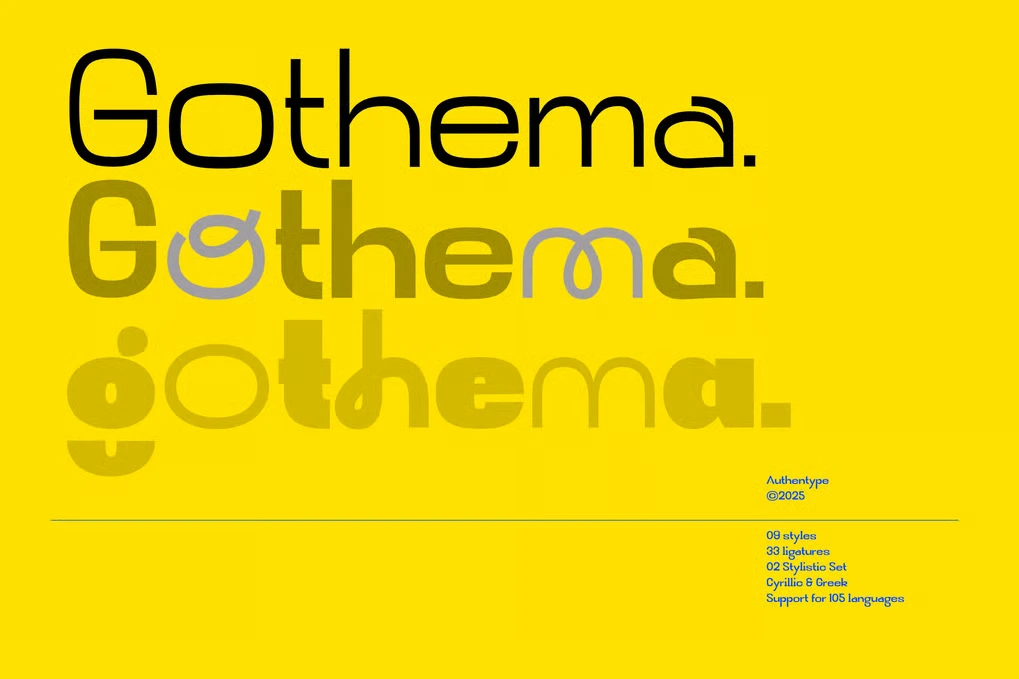
Shape Your Brand with Gothema – A Modern Geometric Sans
Gothema is a clean, modern geometric sans-serif font family designed to deliver clarity, elegance, and a bold visual identity. With that in mind, its refined structure and complete weight range make it perfect for high-impact results across both digital and print platforms.
PRECISION MEETS FLEXIBILITY
Each letterform is carefully constructed to balance geometric form with natural legibility. As a result, this fusion of logic and beauty makes Gothema ideal for projects that require both structure and style.
PERFECT FOR A WIDE RANGE OF USES
• BRAND IDENTITY & LOGO DESIGN
Gothema delivers a bold and memorable look. Consequently, it gives your brand a confident, modern voice.
• WEB & APP INTERFACES (UI/UX)
Its clean forms and strong legibility work perfectly for digital interfaces and responsive layouts. Therefore, it’s a great fit for modern UI design.
• EDITORIAL & MAGAZINE DESIGN
From striking headlines to smooth body text, Gothema enhances the reading experience. In addition, it maintains readability across various sizes and contexts.
• MARKETING MATERIALS & PRESENTATIONS
Use Gothema to create sleek, professional brochures, pitch decks, and ads. Moreover, its stylistic versatility elevates brand consistency.
• PACKAGING & PRODUCT DESIGN
Its clarity and elegance bring a premium feel to any physical or digital product. Thus, Gothema is highly suitable for packaging that needs to stand out.
SPECIAL FEATURES
LIGATURES
Includes crafted ligatures like ff, fi, and tt for smoother text flow and improved visual balance. Consequently, your typography will feel more natural and refined.
STYLISTIC SETS (2 SETS)
Offers alternate letterforms and creative variations for selected characters. This means you can achieve more expressive, customized typography.
MULTILINGUAL SUPPORT
Covers Latin, Cyrillic, and Greek alphabets. As such, Gothema is a powerful tool for international and multilingual design projects.